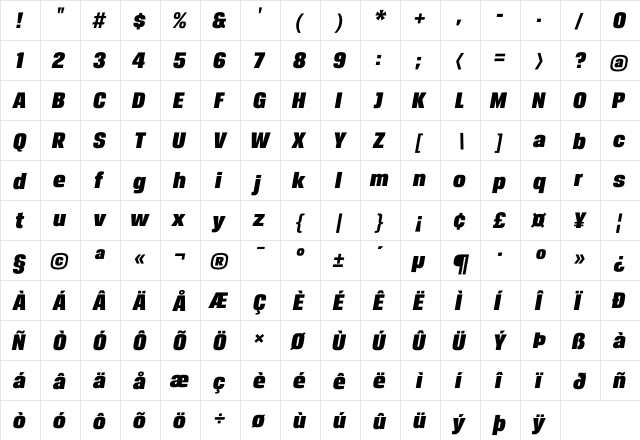
BreuerHeadline Oblique Font Preview
BreuerHeadline Oblique
| Foundry | by Silas Dilworth |
Design Context for BreuerHeadline Typeface
BreuerHeadline takes a measured approach to typography — its balanced proportions and neutral character make it a reliable workhorse for both digital and print work. The slanted form adds forward momentum and visual energy.
Pro Tip: Use BreuerHeadline for emphasis, pull quotes, and subheadings where its slanted energy can add rhythm to the layout.